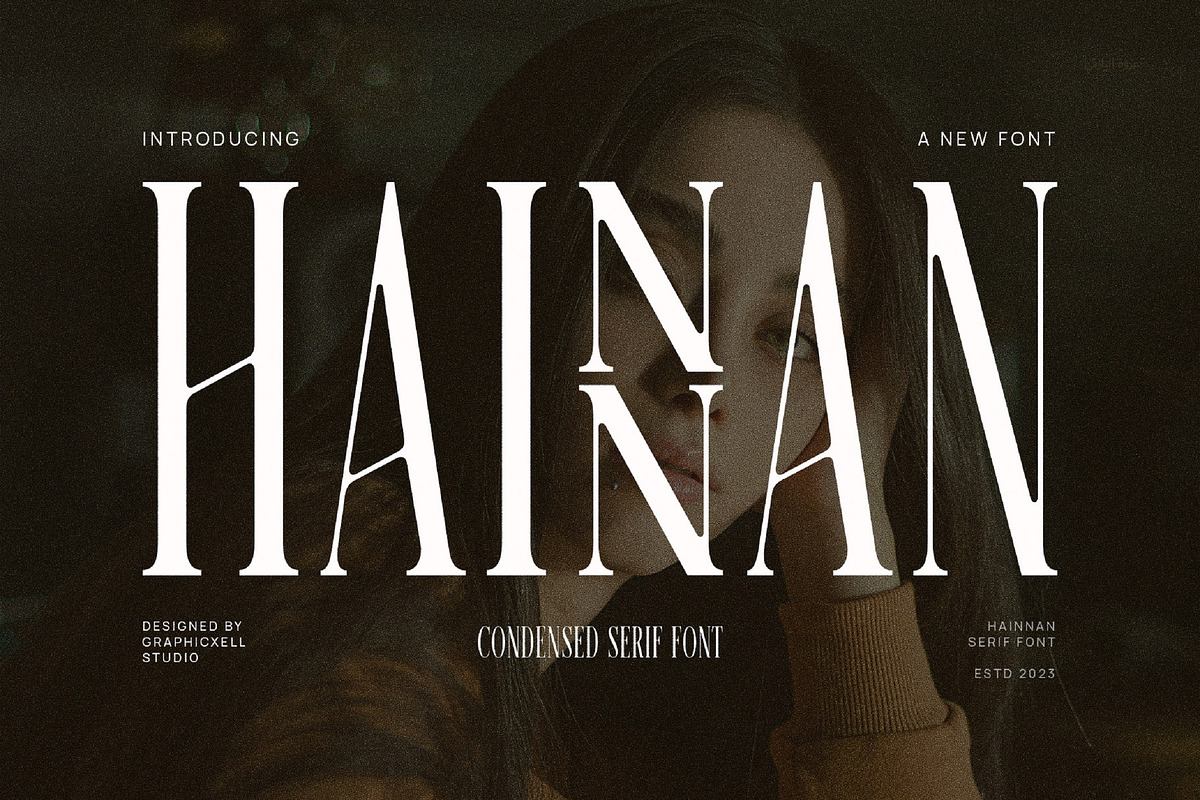
Hainnan Elegant Ligature Serif Font Free Download is a unique and refined typeface that seamlessly blends classic serif elements with contemporary design. Crafted by Graphicxell, Hainnan offers a sophisticated aesthetic, making it ideal for a variety of design projects, including branding, logos, wedding invitations, social media posts, advertisements, product packaging, labels, photography, watermarks, and stationery.
Hainnan's design features elegant ligatures and a modern style, ensuring high readability and a classy appearance. The font package includes OTF, TTF, and WOFF files, providing compatibility across different platforms and applications.